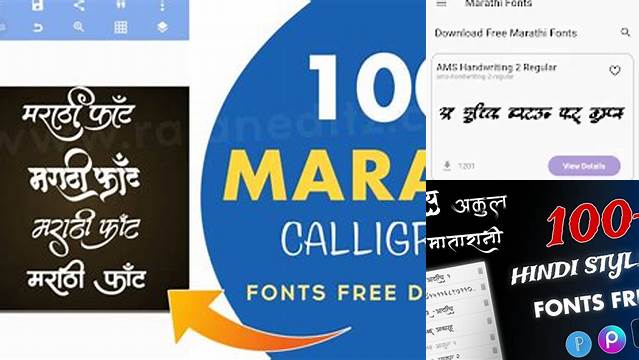
Marathi Fonts For CapCut: Free Download & Guide
Hey guys! Ever wanted to spice up your CapCut videos with some cool Marathi fonts? You're in the right place! We're diving deep into everything about capcut fonts download marathi, from where to find them to how to install and use them like a pro. Get ready to give your videos that awesome Marathi touch!
6. Locating the Font Folder in CapCut on Android/iOS
Alright, let's get familiar with where those capcut fonts download marathi actually live within the CapCut app on your Android or iOS device. Knowing how to navigate the font folder is essential for ensuring your fonts are correctly installed and for troubleshooting any issues you might encounter. On Android, the font folder is usually located within the CapCut app's internal file structure. However, you can't directly browse it using the standard file manager. Instead, you'll copy the font files to the appropriate folder, which we've already covered, in the previous steps: /sdcard/Android/data/com.lemon.lvoverseas/files/CapCut/fonts/. This is where CapCut looks for custom fonts. If the 'CapCut' or 'fonts' folders don't exist, you'll need to create them manually. With your file manager app, copy your Marathi font files (.TTF or .OTF) into this 'fonts' folder. On iOS, the font folder structure is more controlled due to the nature of the iOS operating system. You typically won't be able to browse directly to a font folder within the CapCut app. Instead, you'll rely on third-party file management apps, such as 'Documents by Readdle' or 'iFont,' to install the fonts as we did in the previous steps. The fonts will be installed within the app itself, and you won't have a specific folder to browse. After installing the fonts, the next step is to open the CapCut app and create or edit a project. Tap on the 'Text' option. Tap 'Add Text' to add a text box. Select the 'Font' option. This is where you'll find a list of all available fonts. Make sure to double-check that your Marathi fonts are in the list. If they aren't, go back to the installation steps to ensure the fonts are correctly placed in the correct folder. Remember, the specific folder paths and the way the fonts are accessed may vary slightly depending on your device, the version of CapCut you're using, and the specific file manager app. However, following the steps described above will get you to use the capcut fonts download marathi.
7. Adding Text in CapCut Using Your New Marathi Fonts
So you've successfully downloaded and installed those amazing capcut fonts download marathi, now it's time to put them to use and add some Marathi text to your video! The process is simple and fun, so let's dive right in. First, open your CapCut app and either start a new project or open an existing one. Once you're in the video editing interface, tap on the 'Text' option. This option is usually found in the bottom menu of the app. Next, tap on 'Add text'. This will create a new text box on your video. A text box will appear on your video, ready for you to type in your Marathi text. Tap on the text box to select it. Start typing your Marathi text. You can use your device's keyboard to type in Marathi characters. If you don't have a Marathi keyboard installed, you can add one in your device settings, or you can also copy and paste Marathi text from another source. Now, it's time to change the font to your Marathi font! Select the text box. Look for the 'Font' option. This option is usually found in the text editing menu. Tap on 'Font.' You'll see a list of available fonts. Scroll through the list until you find your Marathi fonts. They should be listed along with the other fonts available in CapCut. Select your desired Marathi font by tapping on it. The text in your text box should immediately change to the selected font. You can adjust the size, color, and position of your Marathi text to fit your video's aesthetic. In the text editing options, you'll find tools to customize the text. You can also add animations, effects, and styles to make your text pop. Play around with the different options and see what looks best for your video. Remember, the key is to experiment and have fun! The best way to learn is to try different fonts and styles. With these simple steps, you'll be well on your way to using your capcut fonts download marathi in your videos.
8. Troubleshooting: Font Not Showing Up in CapCut
Ugh, so frustrating! You've done everything right, downloaded and installed your capcut fonts download marathi, but they're not showing up in the CapCut app. Don't worry, this happens to the best of us. Here's a troubleshooting guide to help you get those fonts working. First off, double-check the font installation. Make sure you followed the installation steps correctly for your device. Revisit the installation steps for Android or iOS. Sometimes, a small mistake can cause the font to not show up. Secondly, verify the font file format. As mentioned earlier, CapCut usually supports .TTF and .OTF font files. Make sure the font files you downloaded are in one of these formats. If not, you might need to convert them. Third, restart the CapCut app. This is a simple step that often resolves the issue. Close the CapCut app completely and reopen it. Sometimes, the app needs to refresh its font list. Then, restart your device. Restarting your Android or iOS device can often resolve some software conflicts. If you're still having trouble, restart your device after installing the fonts. Fourth, check the font compatibility. Make sure the font supports the Marathi script. If the font doesn't include the necessary characters, it won't display the text correctly. Fifth, check the font folder. Verify that the font files are placed in the correct font folder within CapCut. Remember the correct folder path. Finally, update CapCut. Make sure you have the latest version of the CapCut app installed. Updates often include bug fixes and compatibility improvements. If you've tried all these steps and the fonts still aren't showing up, you might want to consider contacting CapCut support for further assistance. They might have insights into specific issues related to font compatibility. With these troubleshooting tips, you should be able to get your capcut fonts download marathi working in no time!
13. Marathi Font Styles: Serif vs. Sans-Serif and More
So, you're browsing through those capcut fonts download marathi, and you're probably noticing a bunch of different styles. Knowing the basics of font styles will help you choose the perfect fonts for your videos. Let's break down some key styles. First, let's talk about Serif fonts. These fonts have small strokes or